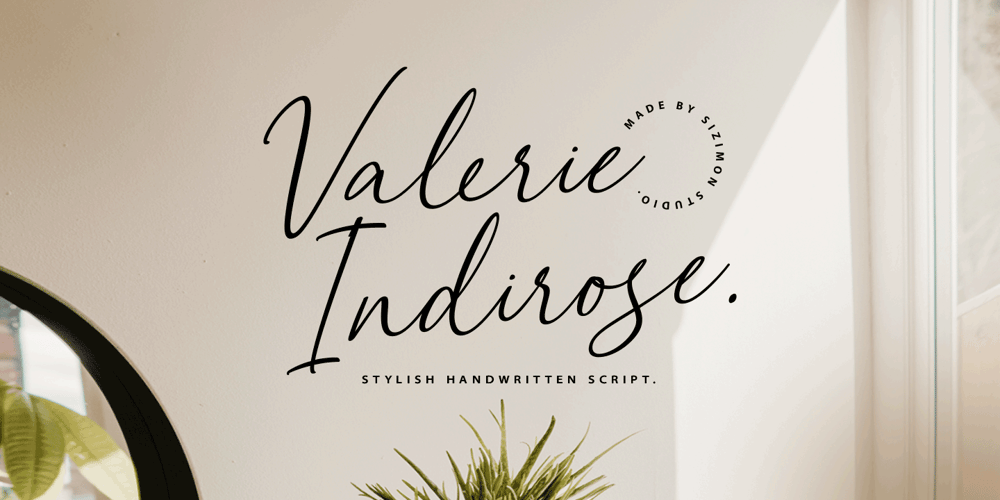
Valerie Indirose Font Family was designed by Faisal Tanjung and published by sizimon. Valerie Indirose contains 1 styles and family package options. The font is called “Valerie Indirose”, it is with fashionable themes. Script font contains 2 set alternates and some ligatures. The Valerie Indirose matches apply in some designs such as the logotype, quotes, wedding invitation, business card, packaging, branding, and more custom design.What’s Include : Uppercase, lowercase, numeral, symbol and punctuation, alternates (ss01-ss02), ligature in script font PUA Encoded Multilingual support If you have any questions, please contact : info@sizimon.com